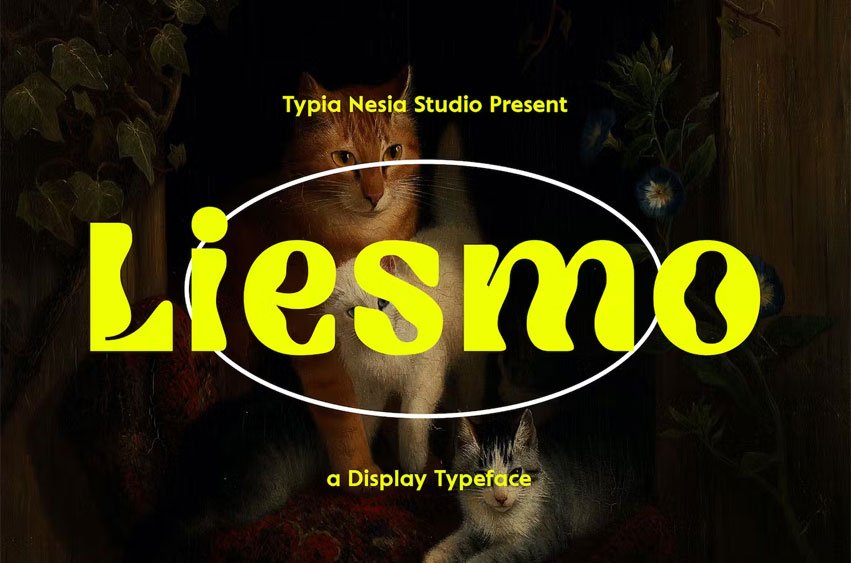
Liesmo Font psychedelic Black Display Sans Serif- Expressive Brutalist Font. Liesmo Sans Serif Font is perfect for your upcoming projects. Such as logo branding, editorial design, stationery design, fashion, sport design, startup industry, music poster, blog design, website, app design, UI UX, modern advertising design, editorial, magazine, book/cover title, special events, and more.
Liesmo Font Preview